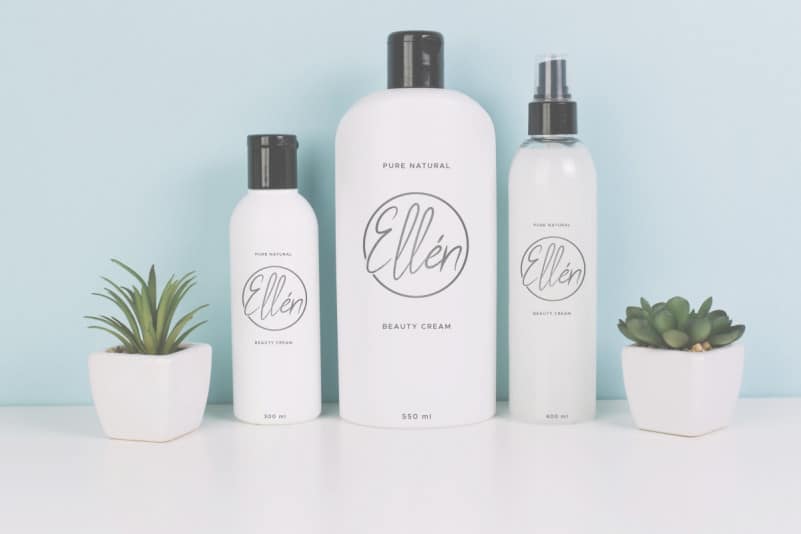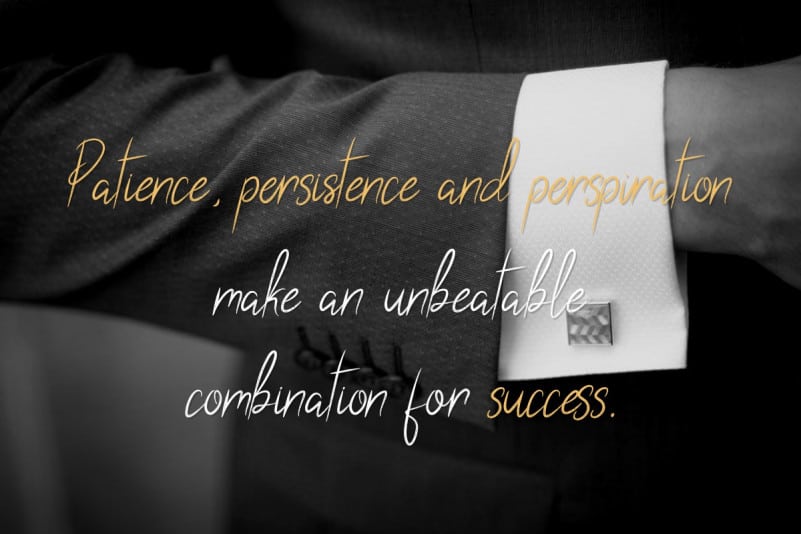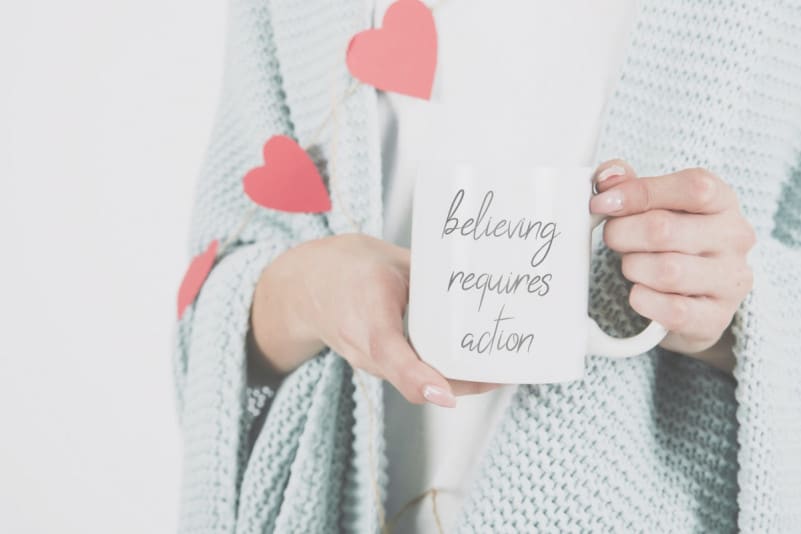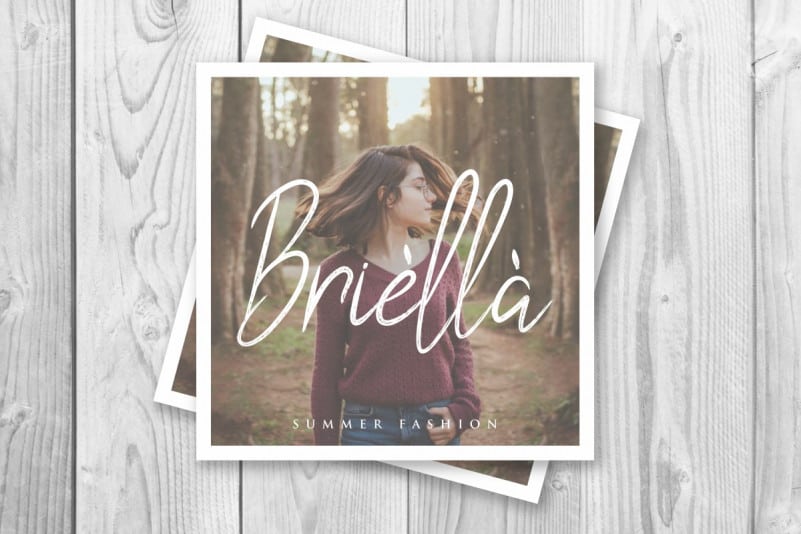
Silver Eye Handwritten Font
Silver Eye Handwritten Font is a script typeface with brush style . This font has a stunning characters set, perfectly managed with well spaced and kerning. The theme style of this font will elegant, vintage, stylish, sophisticated, modern and classic brush calligraphic style. You wont find any where else, the font like Silver Eye Font
Silver Eye Handwritten Font will be great for any projects including : branding, logo, stationery, business card, signage, flyer, brochure etc. Almost all industries will be match for this typeface: wedding, events, real estate, architect, law firm, florist, gardening, makeup artist, travel, hotel, musician etc